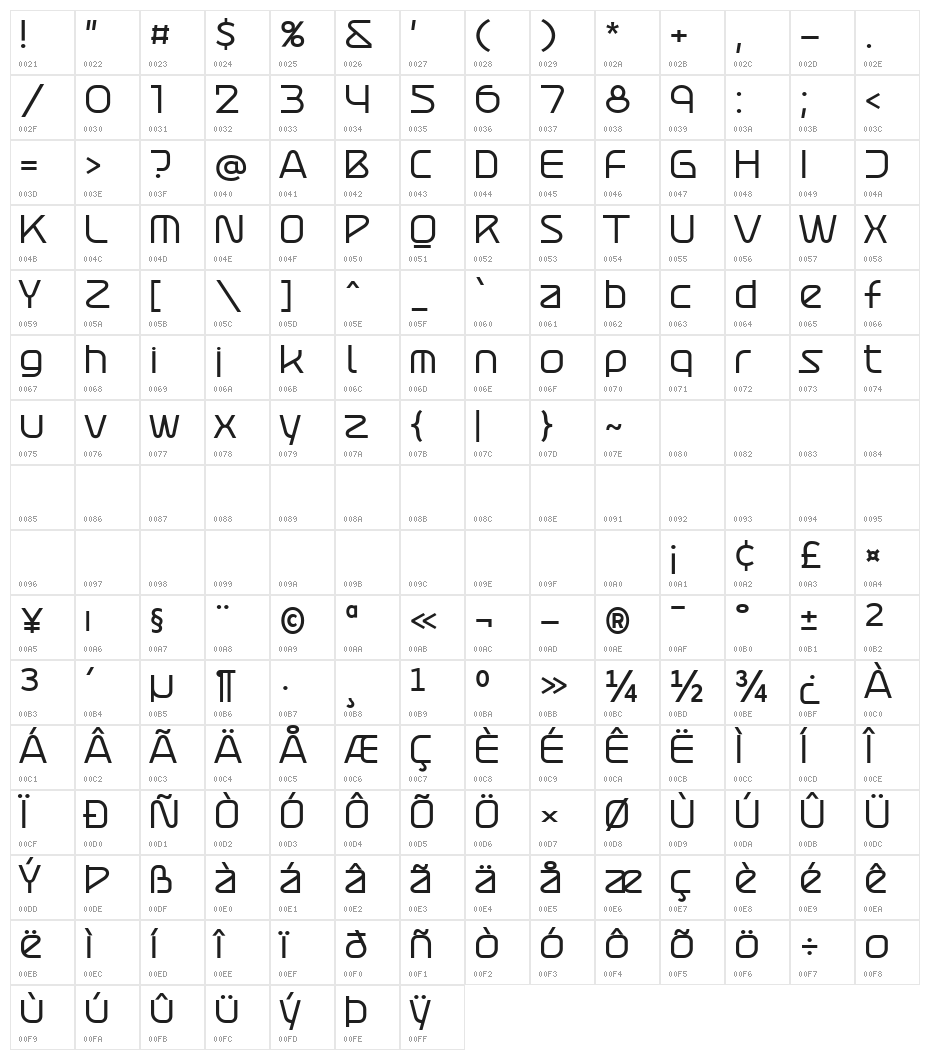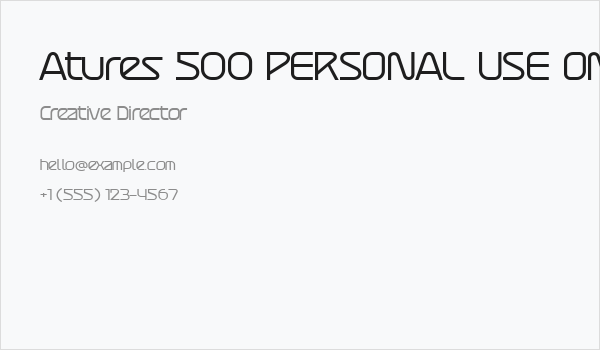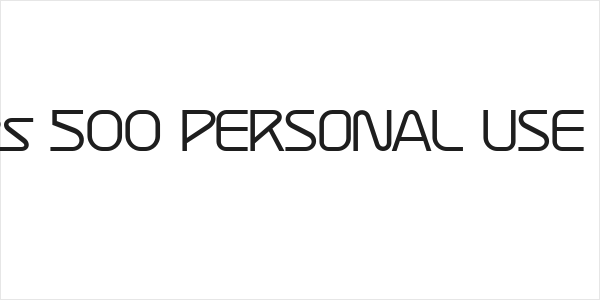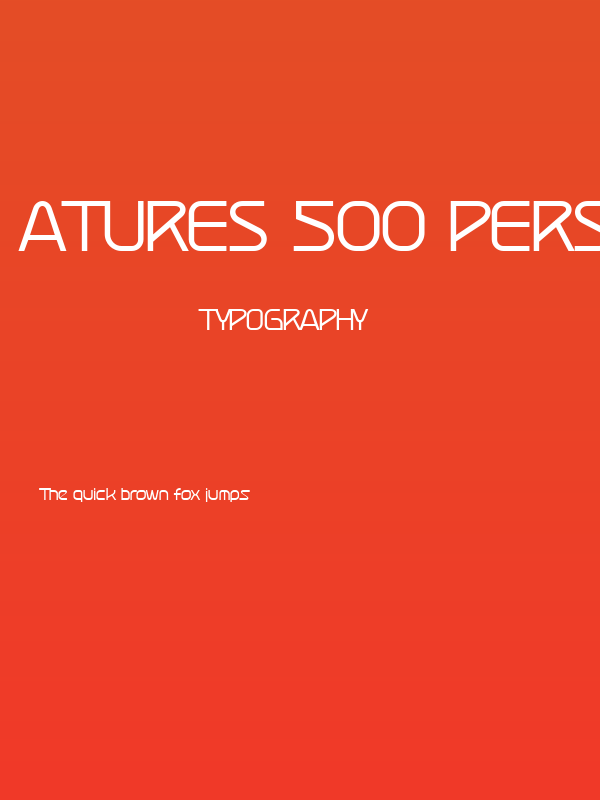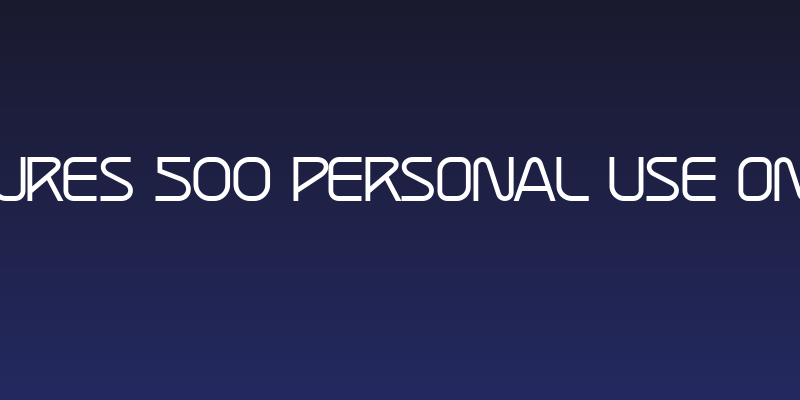
Atures 500 PERSONAL USE ONLY Font
Atures 500 PERSONAL USE ONLY Description
This font features a modern, geometric design with clean lines and a futuristic aesthetic. The characters are constructed with uniform stroke widths, giving it a sleek and contemporary appearance. The uppercase letters are bold and structured, while the lowercase letters maintain a consistent style with rounded edges and open counters. The numerals are distinct and easily readable, complementing the overall design. Special characters are included, maintaining the same geometric style, making this font versatile for various applications.
Use CaseHeadlines, Logos, Digital interfaces
Proposed ProjectsIdeal for technology branding, modern advertising, digital interfaces, and futuristic design projects.